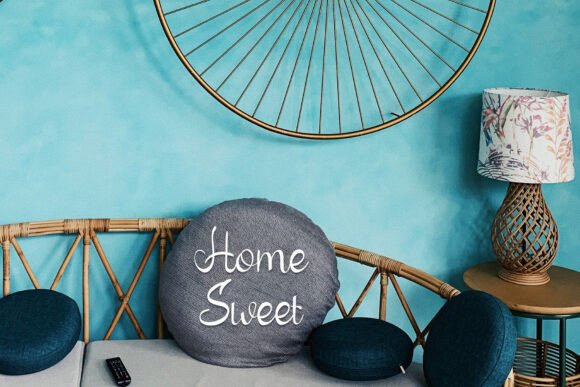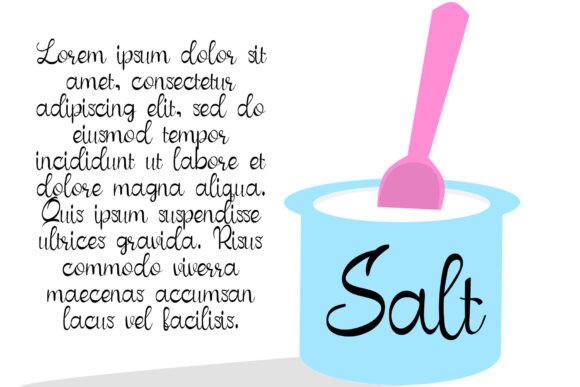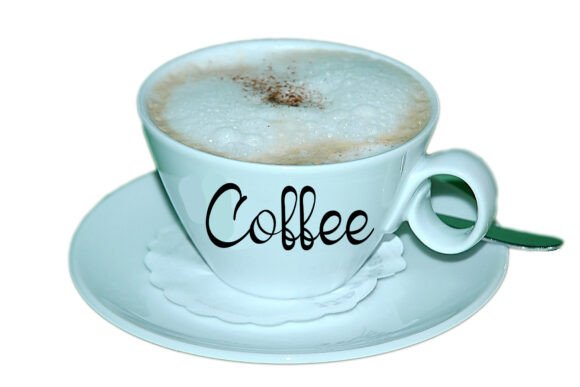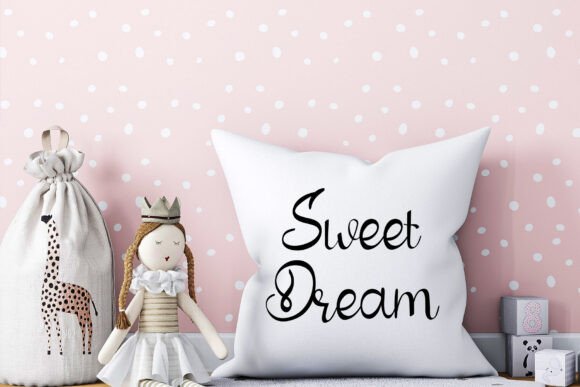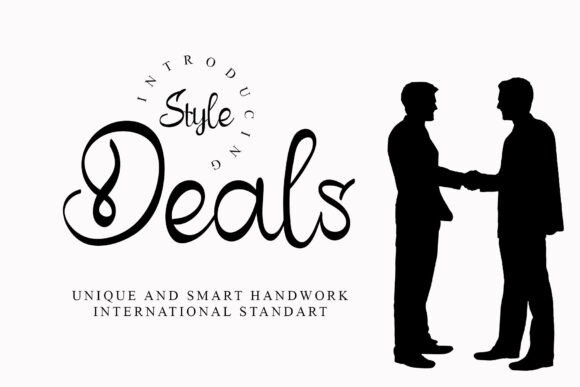
Introducing Deals Font: Elevate Your Designs with Elegance
Are you on the lookout for a font that adds a touch of sophistication and uniqueness to your projects? Look no further than Deals Font, a beautifully crafted typeface designed to meet your creative needs. Whether you’re working on a wedding invitation, a birthday card, or any other project that requires a personal touch, Deals Font is the perfect choice.
A Professionally Crafted Font
Deals Font is not just any ordinary font. It has been carefully designed with a professional hand touch, ensuring that every letter and glyph is meticulously crafted to provide a seamless and elegant look. This attention to detail makes it an ideal choice for designers and crafters who are looking to add a personal and sophisticated touch to their work.
One of the standout features of Deals Font is its versatility. It is suitable for a wide range of projects, including:
- Wedding invitation cards
- Birthday cards
- All types of party invitations
- School assignments
- Important events
- And many more
This font can be used in various contexts, making it a valuable addition to your design toolkit. Whether you’re creating something for personal use or working on a client’s project, Deals Font can help you achieve the desired look and feel.
Enhance Your Creative Ideas
Deals Font is more than just a typeface; it’s a tool that can help bring your creative ideas to life. By applying this font to your projects, you can add a level of sophistication and elegance that sets your work apart. Whether you’re a seasoned designer or a crafty individual, Deals Font can help you create something truly special.
Why Choose Deals Font?
There are many reasons why Deals Font stands out from the crowd:
- Unique and Elegant: Deals Font offers a unique and elegant look that can elevate any project.
- Professional Touch: Designed with a professional hand touch, this font adds a touch of sophistication to your work.
- Versatile: Suitable for a wide range of projects, from personal to professional.
Deals Font is a unique and elegant typeface that can add a touch of sophistication to any project. Its versatility, professional design, and ease of use make it an ideal choice for designers and crafters alike. Whether you’re working on a wedding invitation, a school assignment, or any other project, Deals Font can help you create something truly special. So why wait? Download Deals Font today and elevate your designs with elegance.
Q: What makes Deals Font unique?
A: Deals Font is unique due to its elegant design and professional hand touch, making it stand out from other fonts.
Q: Is Deals Font suitable for digital projects?
A: Absolutely. Deals Font is versatile and can be used in both print and digital projects.